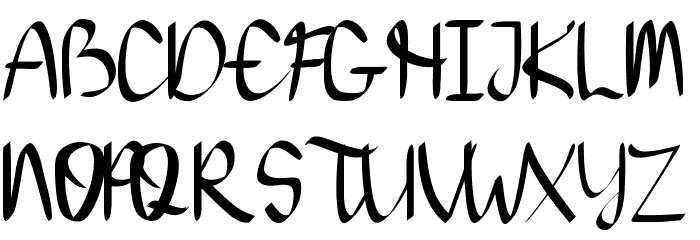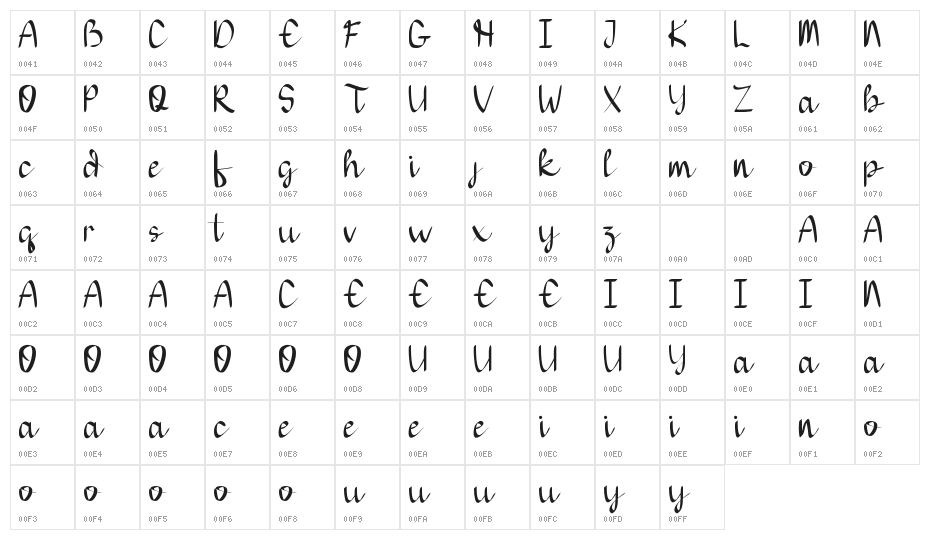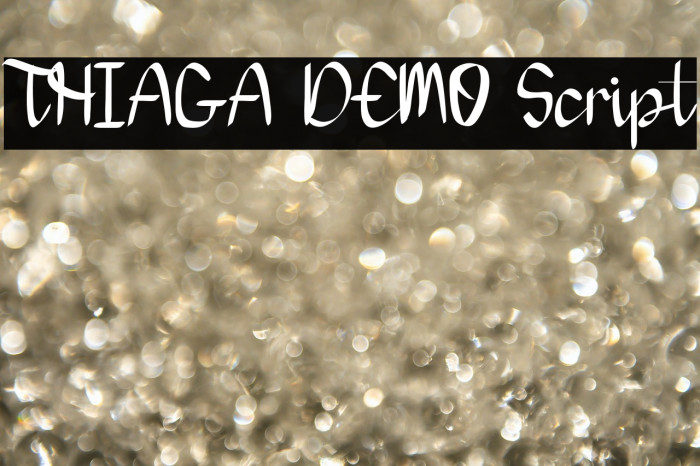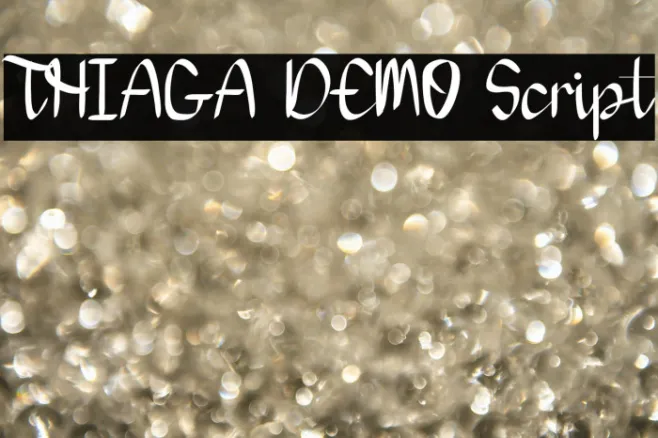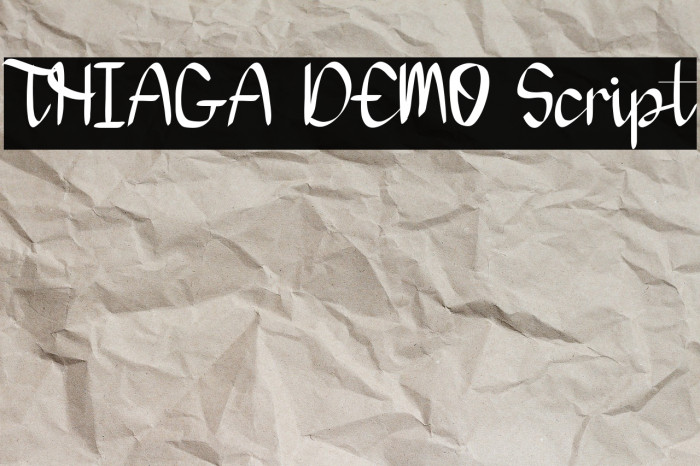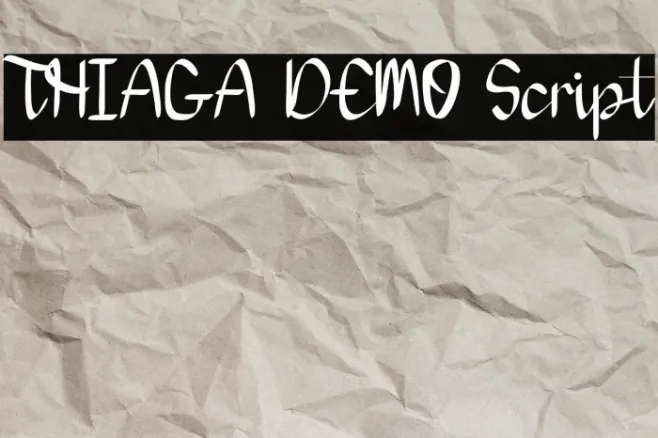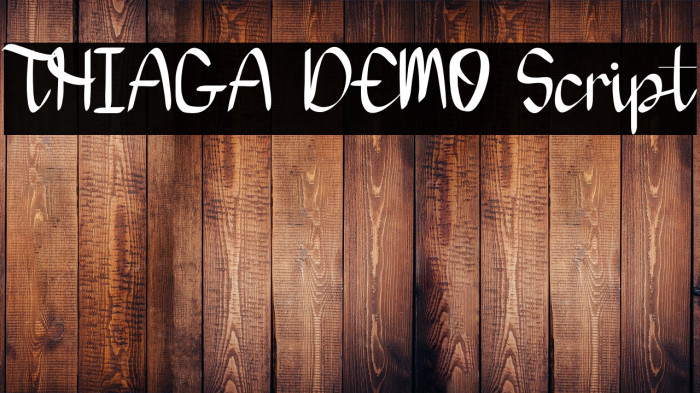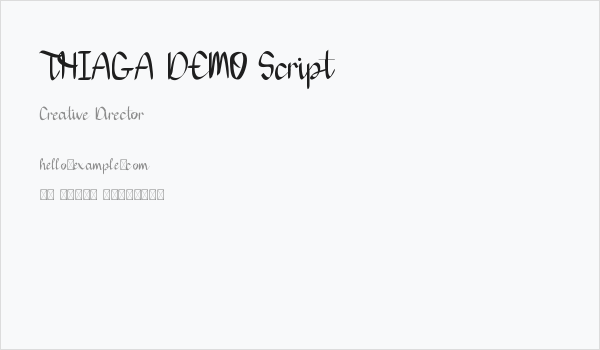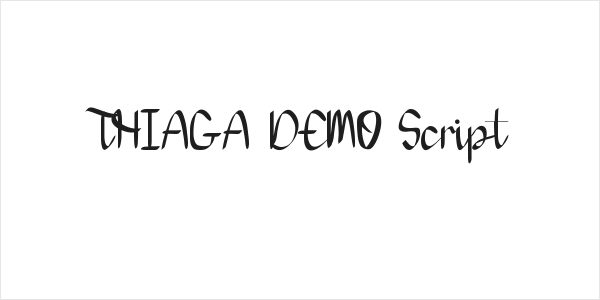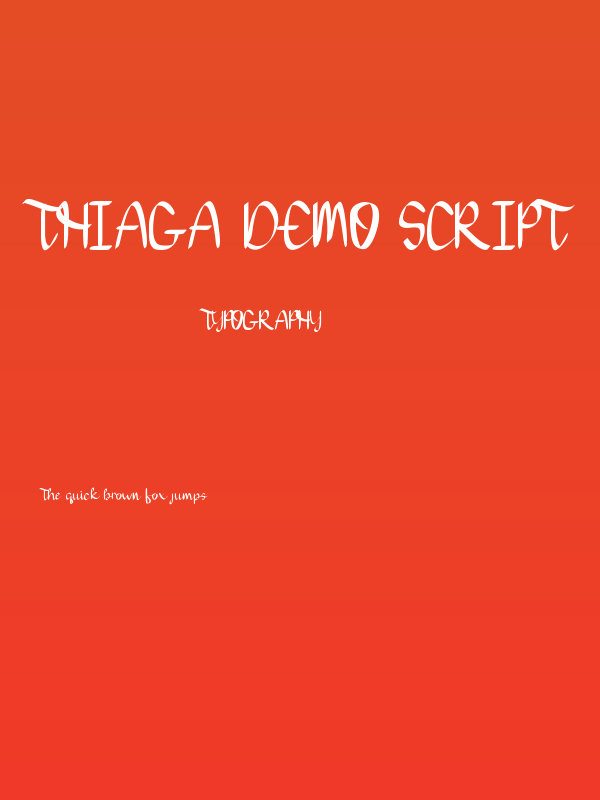
THIAGA DEMO Script Font
THIAGA DEMO Script Description
This font features a dynamic and flowing script style that combines elegance with a modern touch. The letters are interconnected, creating a seamless and fluid appearance that is both artistic and legible. The uppercase characters are bold and expressive, while the lowercase letters maintain a consistent flow with a slightly more delicate touch. The strokes vary in thickness, adding a sense of movement and energy to the text. This font is ideal for projects that require a personal and creative flair, such as invitations, branding, or artistic designs. Its unique style makes it stand out while remaining versatile for various applications.
| Use Case | Logos, Headlines, Artistic designs |
| Proposed Projects | Ideal for invitations, branding, artistic designs, and creative projects. |